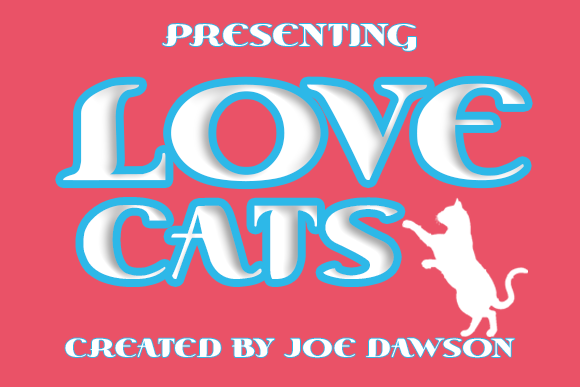
Introduction to Love Cats Font
Have you ever found yourself staring at a blank canvas, searching for the perfect design element to bring your creative project to life? That’s exactly what happened to me last week, and I’m excited to share with you my discovery – the Love Cats Font. This sweet and chunky charactered display font has been making waves in the design community, and for good reason. Its friendly feel makes it incredibly versatile, fitting a wide range of contexts from playful children’s books to high-quality branding materials.
As a designer, I know how valuable it is to have a reliable design resource at your fingertips. That’s why I’m thrilled to share with you the benefits of incorporating the Love Cats Font into your next creative project. With its transparent background and high-quality design, this font is a game-changer for any designer looking to add a personal touch to their work.
Key Features of Love Cats Font
- High-quality, vector-based design for a transparent background, making it ideal for creative projects.
- Unique, whimsical design featuring adorable cats, making it perfect for creative projects and design collaborations.
- Easy to customize and edit, with a simple and intuitive design structure.
Honest Review: Love Cats Font
I recently stumbled upon the Love Cats Font, and I must say, it’s a delightful addition to any creative project. This quirky font is perfect for designers looking for a unique touch in their designs.
- High-quality design: The Love Cats Font is carefully crafted with attention to detail, ensuring a smooth and seamless design experience.
- Transparent background: The font comes with a transparent background, allowing designers to easily integrate it into their designs without any hassle.
- Limited character set: The font has a limited character set, which might be a concern for designers who need a wide range of characters for their project.
- Not ideal for large text: The font’s quirky nature makes it better suited for smaller text sizes, as it can become overwhelming at larger sizes.
Overall, the Love Cats Font is a great addition to any design resource library. While it has its limitations, its unique charm and high-quality design make it a great choice for creative projects. I’d definitely recommend it to designers looking for a fun and quirky font.
How to Use Love Cats Font
Getting the Most Out of the Font
To get the most out of the Love Cats Font, experiment with different font sizes, colors, and combinations. You can also use it in conjunction with other design elements to create a unique and eye-catching design.
The Love Cats Font is ideal for various design projects such as social media graphics, posters, flyers, logos, business cards, presentations, and reports. It’s a versatile font that can be used in a wide range of creative projects.